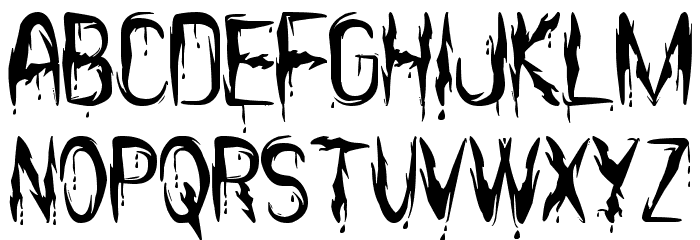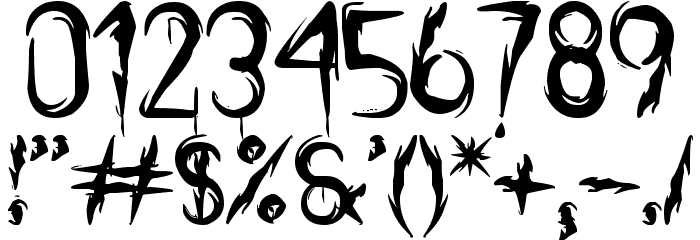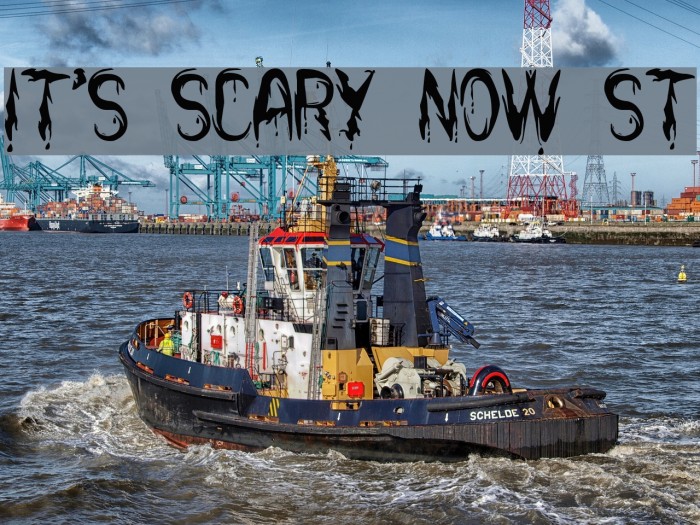
it's Scary Now St Font
This font exudes a chilling, horror-inspired aesthetic with its jagged, dripping letterforms that resemble blood or ink. The uppercase and lowercase letters maintain a consistent, eerie style, with sharp edges and irregular shapes that evoke a sense of unease. Numbers and special characters follow the same unsettling theme, making it perfect for Halloween or horror-themed projects. The font's unique design captures attention and creates a dramatic impact, ideal for creating a spooky atmosphere.
A horror-themed font with jagged, dripping letterforms for a chilling effect.
- Proposed Projects: Ideal for Halloween posters, horror movie titles, haunted house flyers, and spooky event invitations.